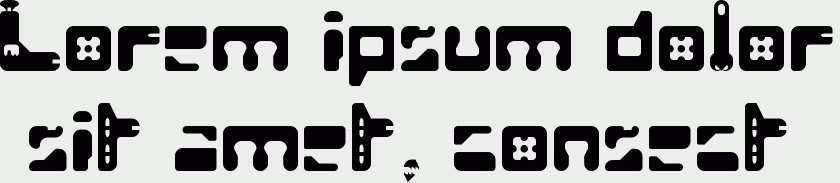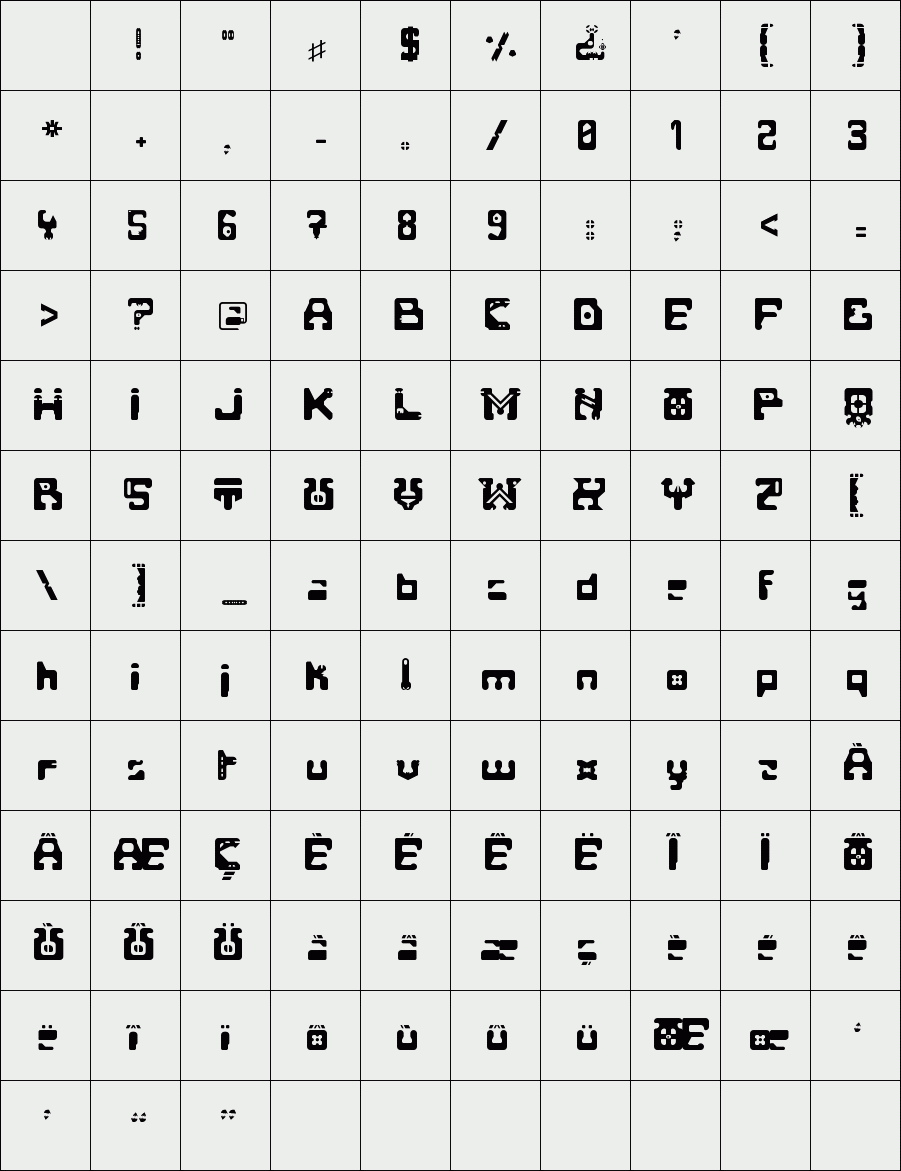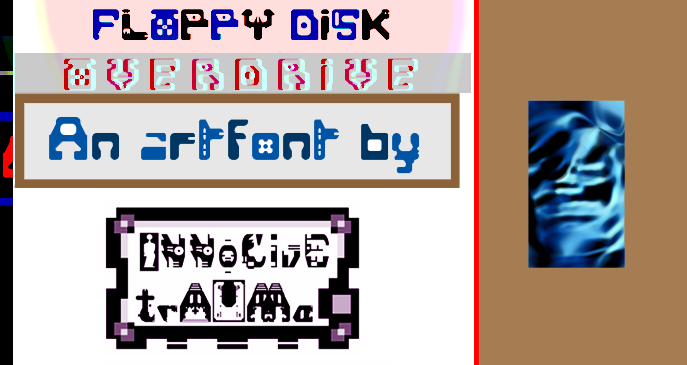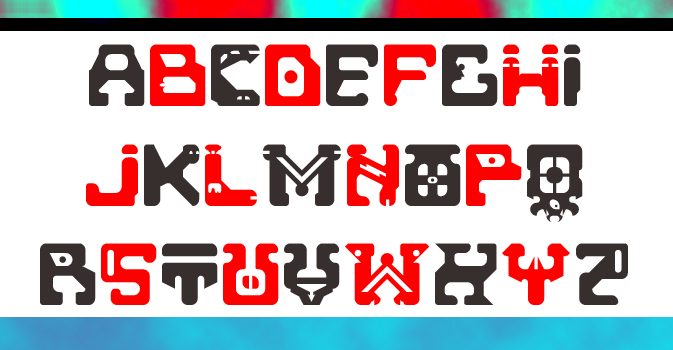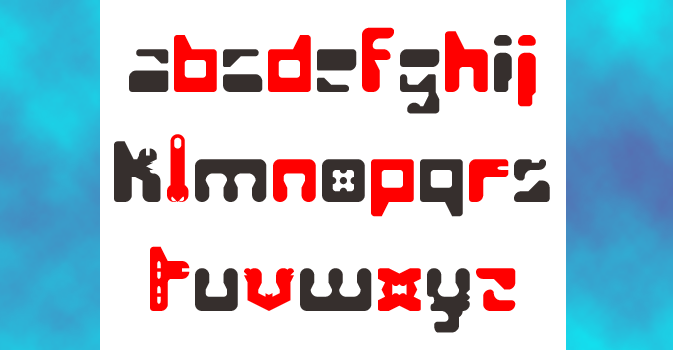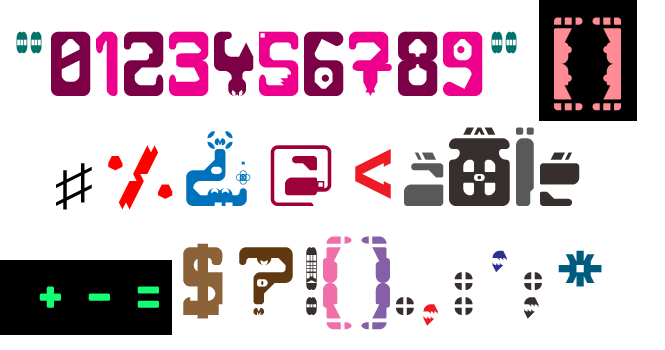
trAUMa 79 / Floppy Disk Overdrive
"Floppy Disk Overdrive", like all the "trAUMa" series, works at the frontier between Art & Type Design, Figuration & Abstraction, each font is a comprehensive world in which every glyph is a "living" entity. But put together they can produce your messages in the most accurate way.